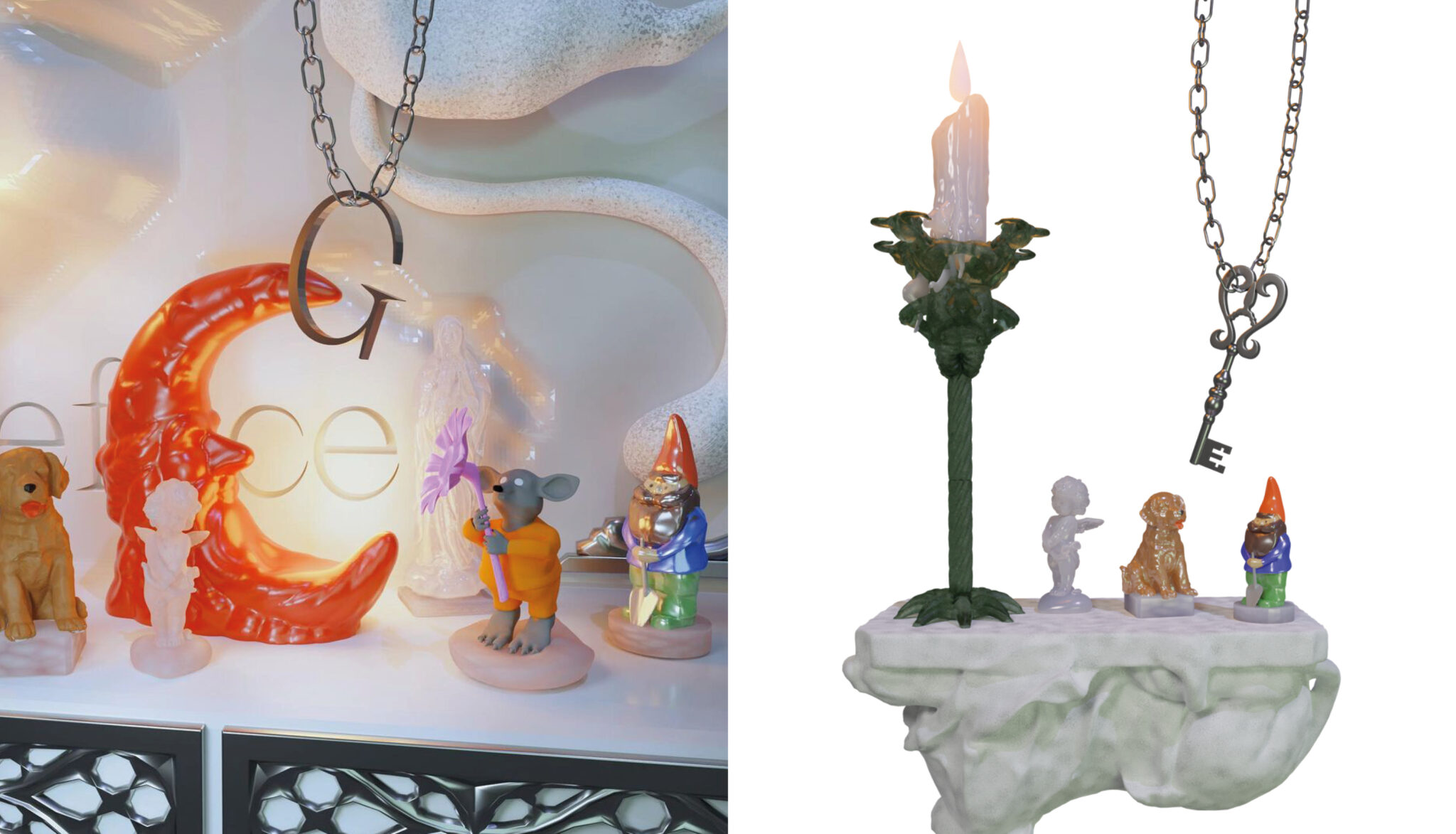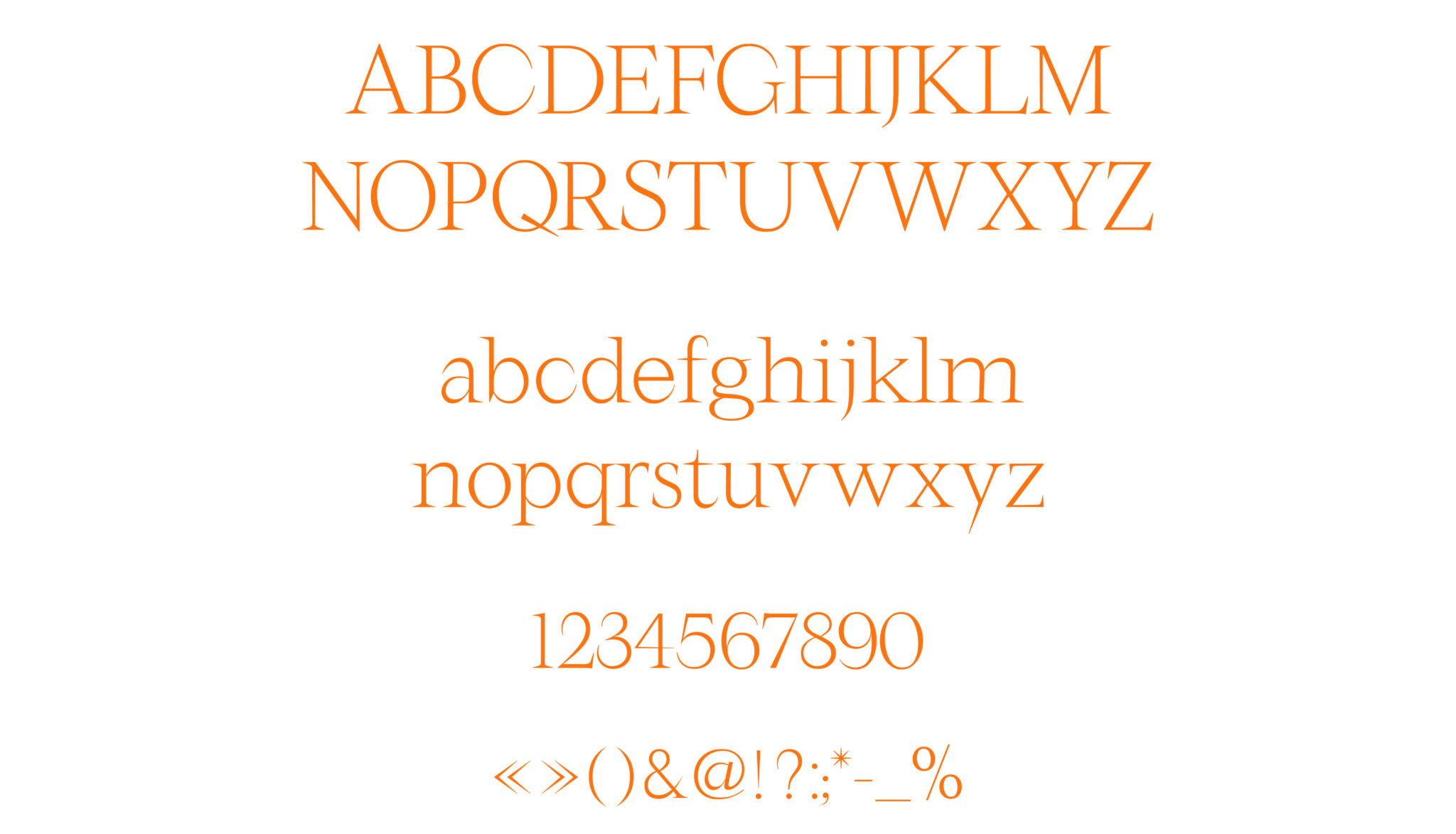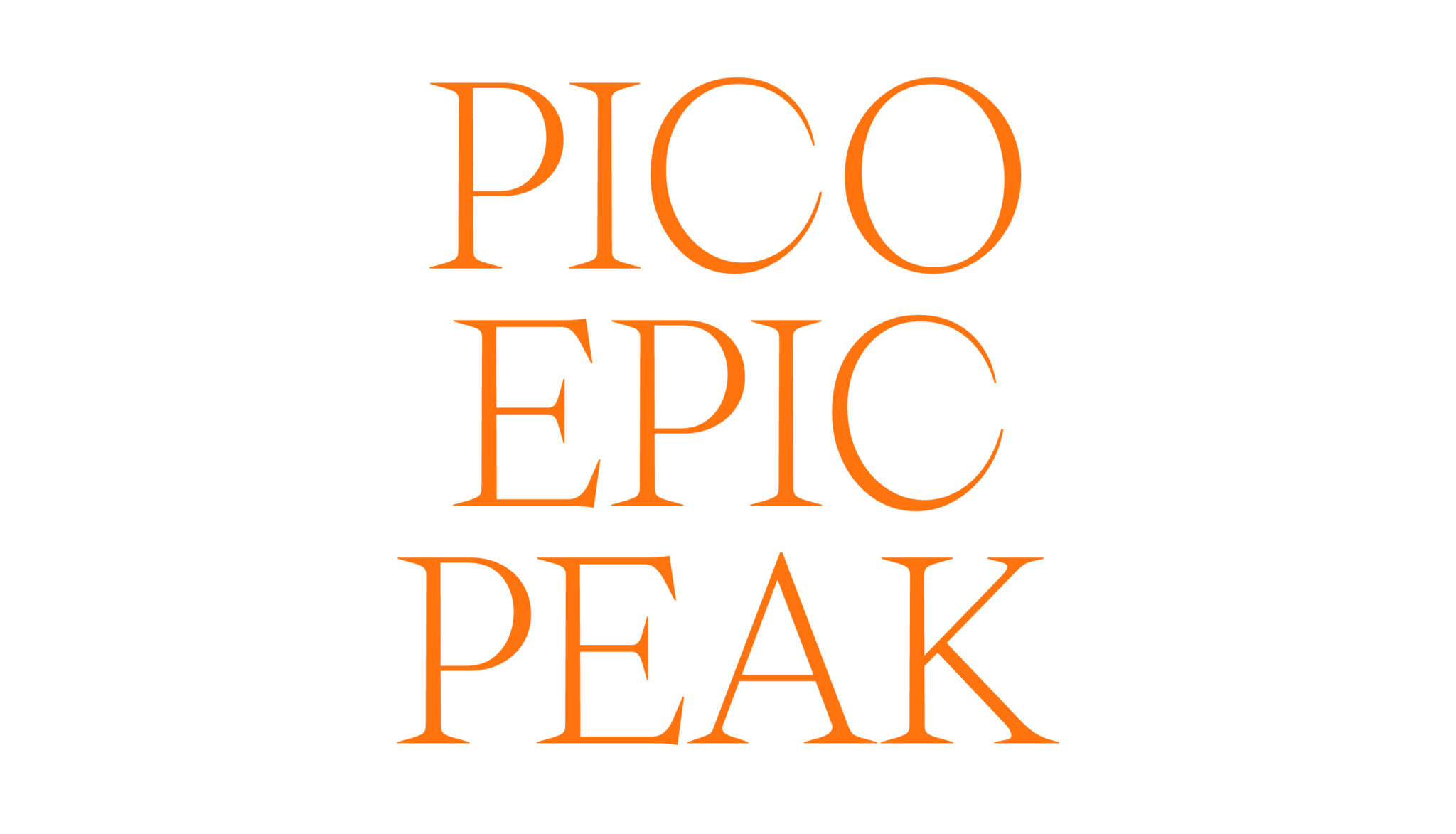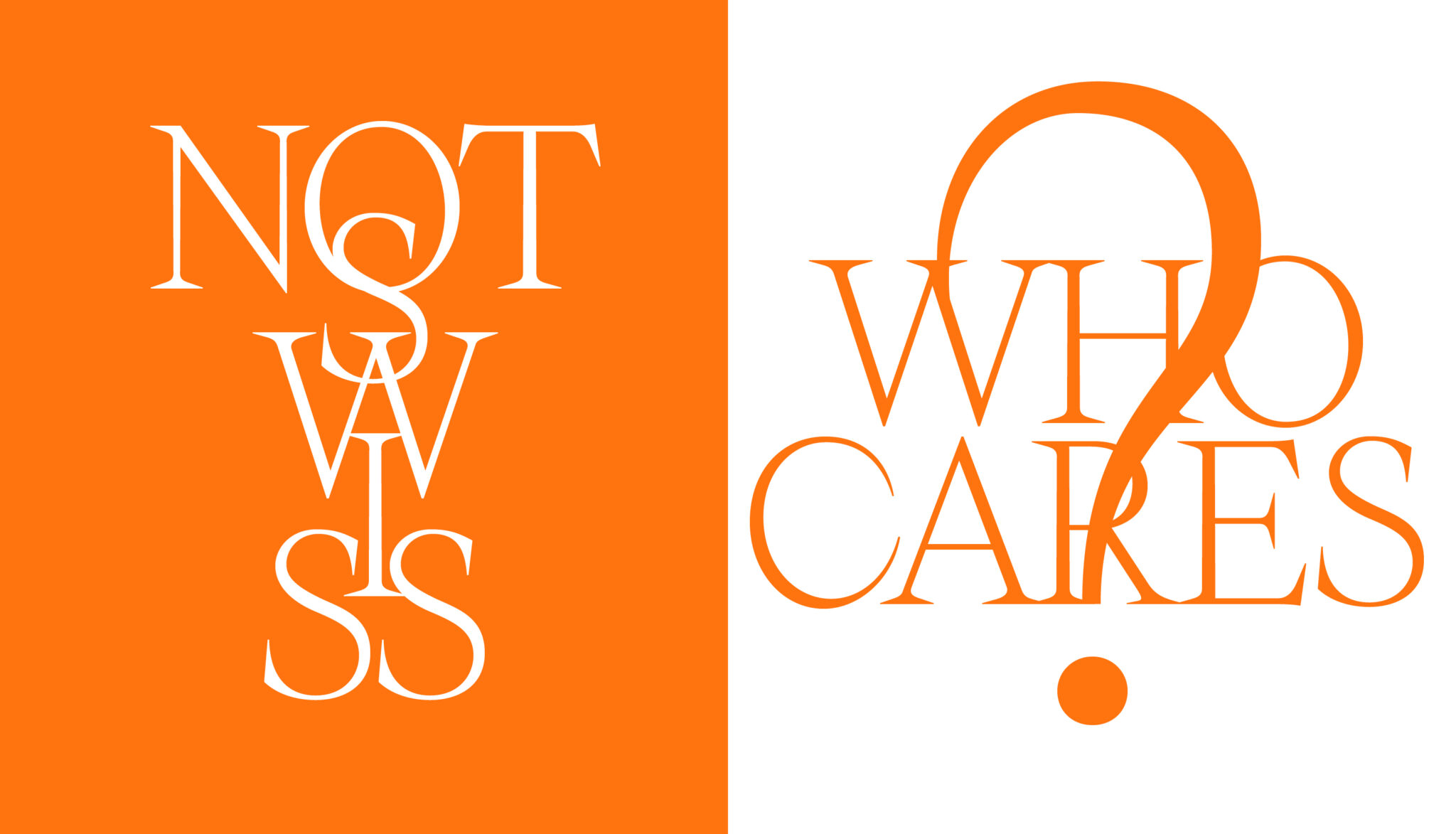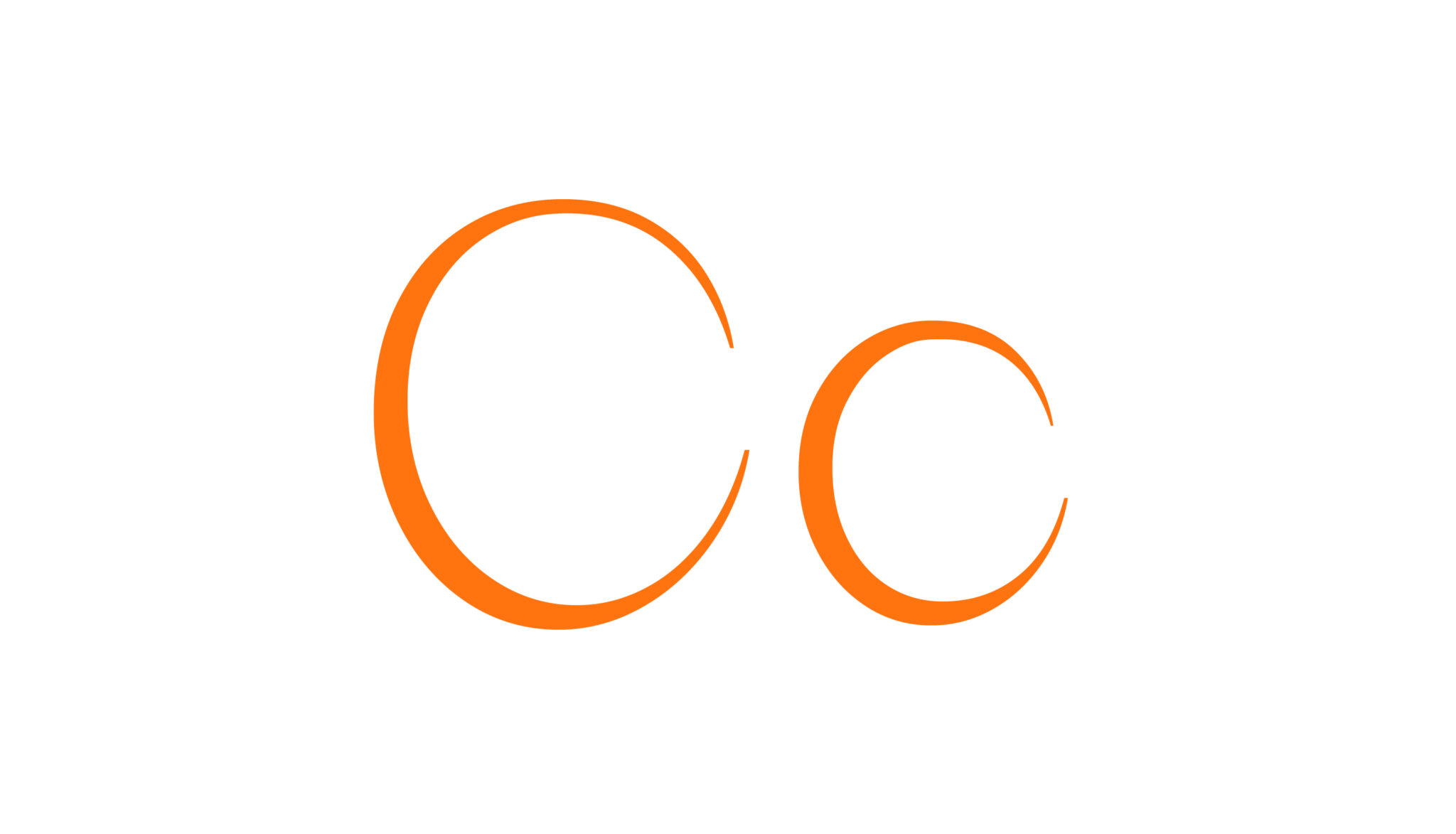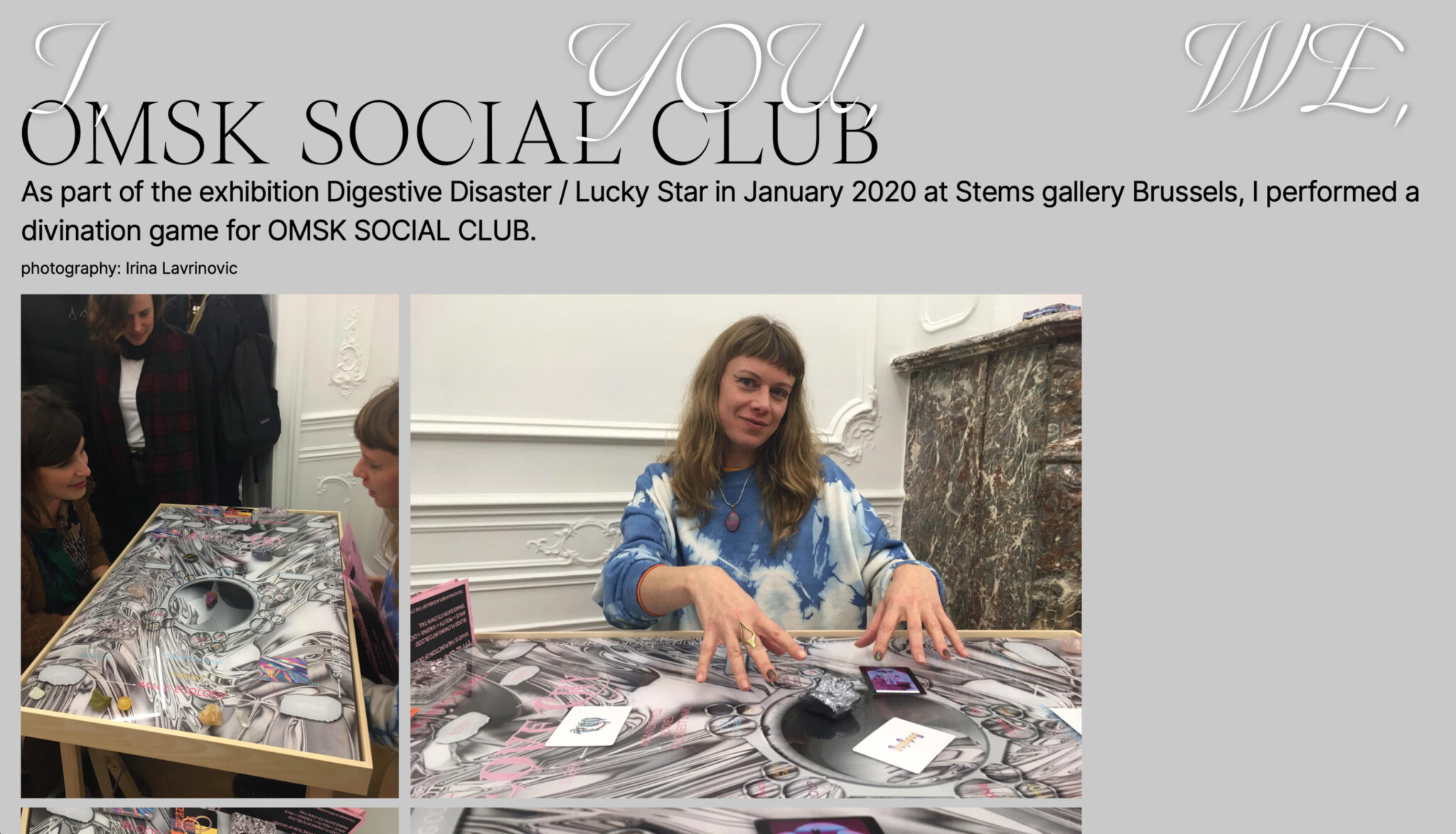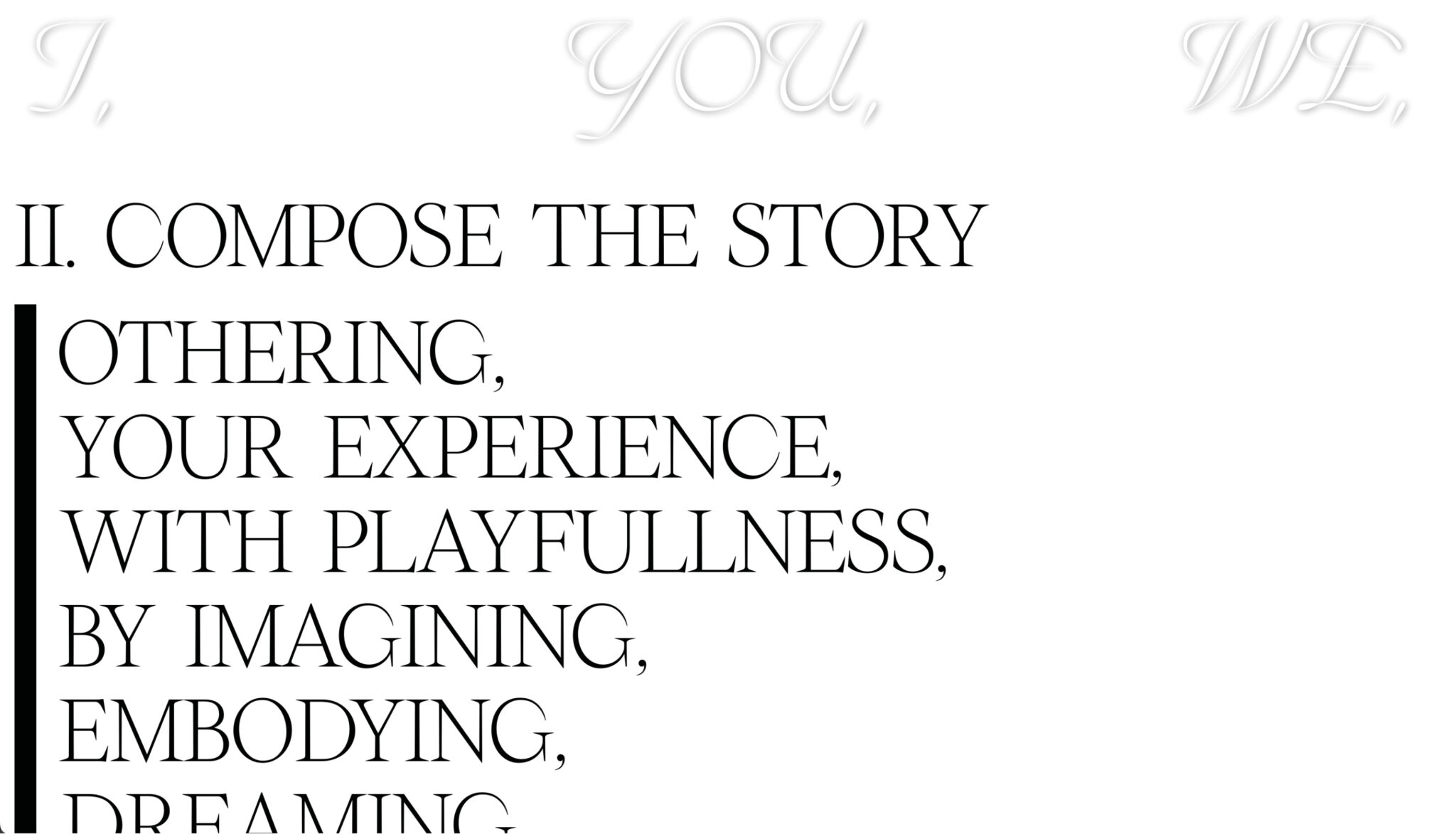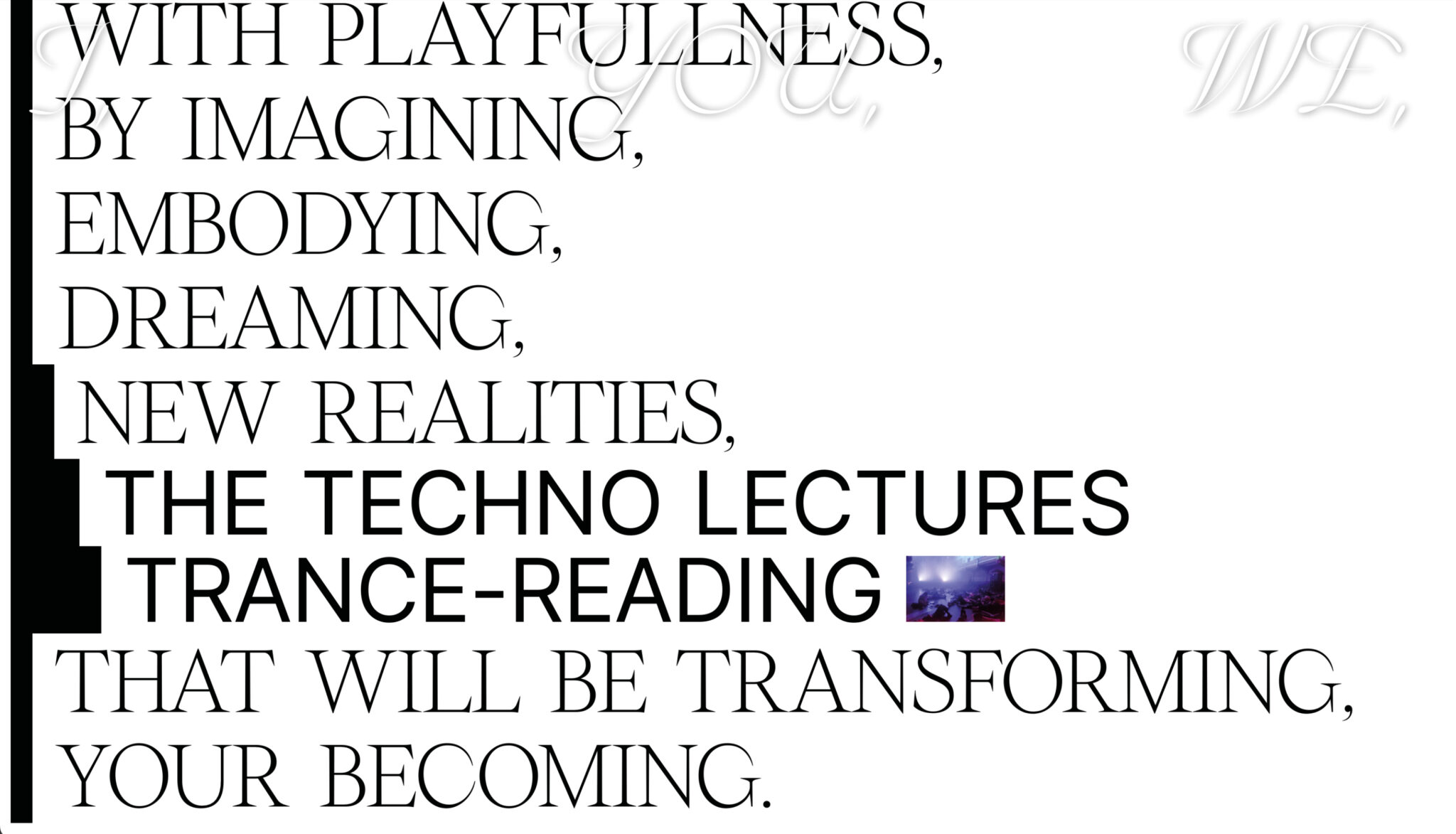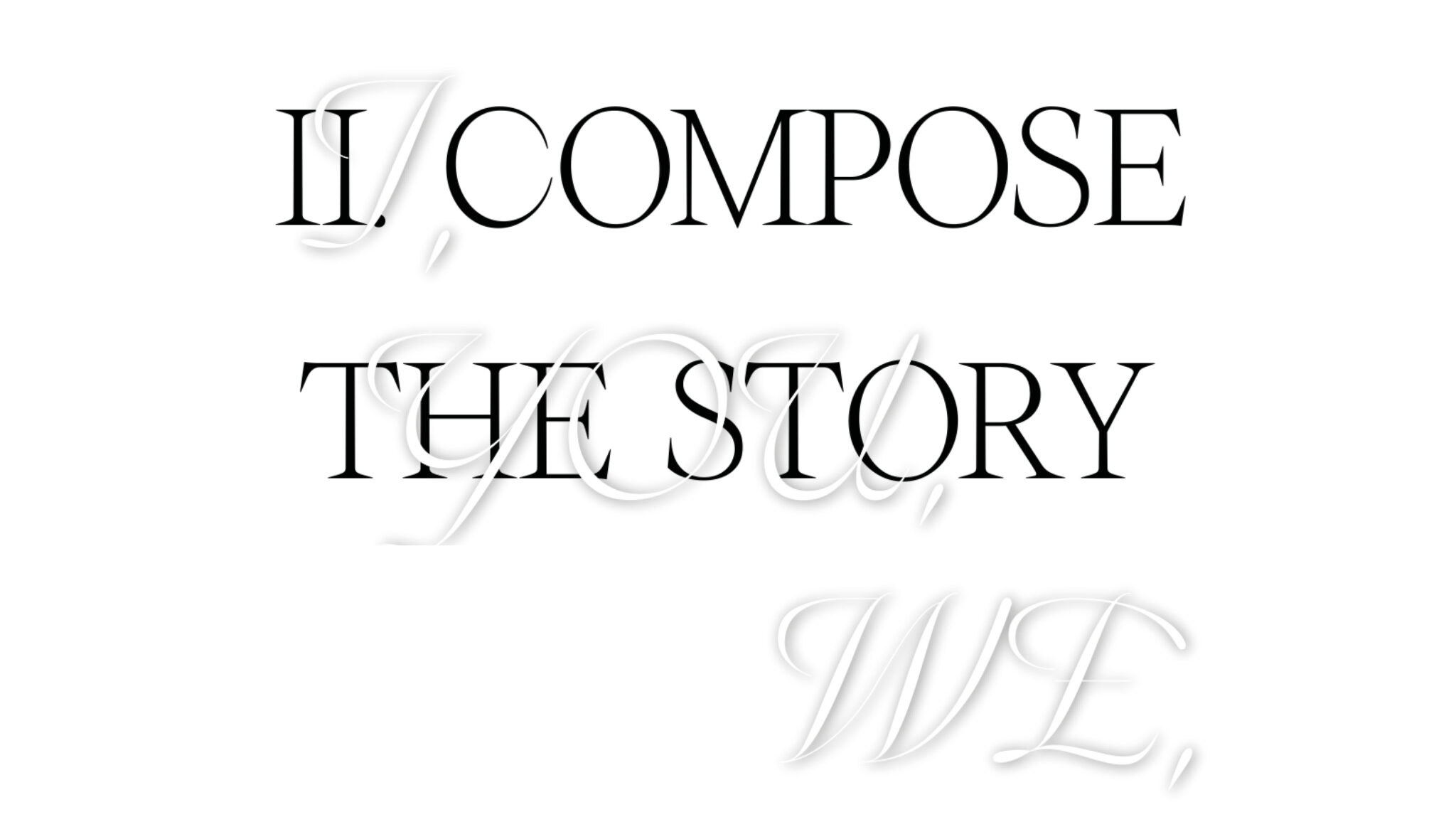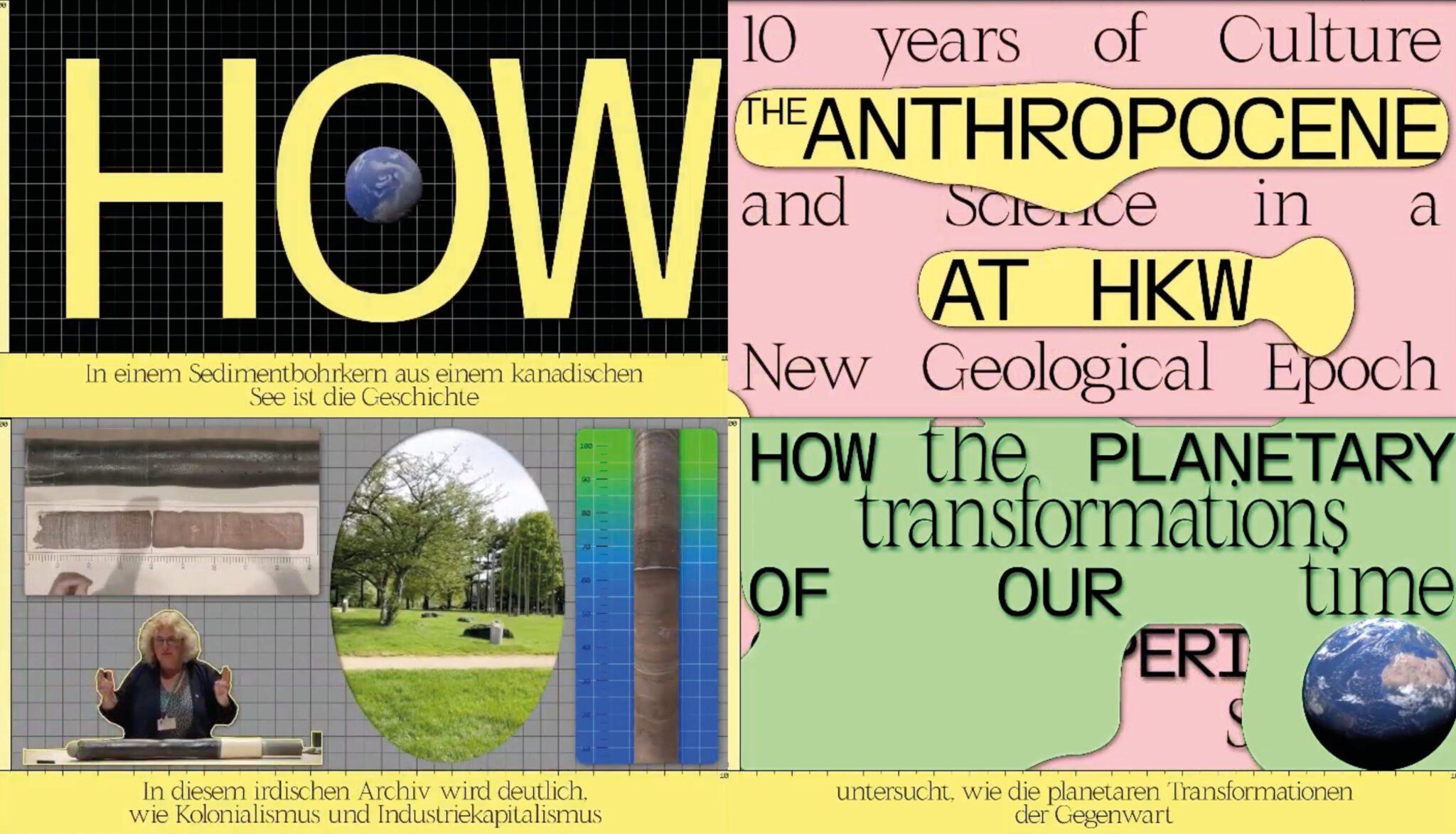
Pico
3D visuals by Pauline Sesniac, 2021.
Pico in use by Studio Yukiko.
Pico in use for Helena Dietrich website.
Pico in use by Studio Yukiko.
Pico is a one-cut typeface freely inspired by carved stones. Its sharp shapes applied to a more classic Serif font design make this typeface both display and easy to read. Pico typeface has been created by the Berlin-based designer Mateusz Zieleniewski in 2018. The font has been finalized together in collaboration with D-E-A-L in 2021.